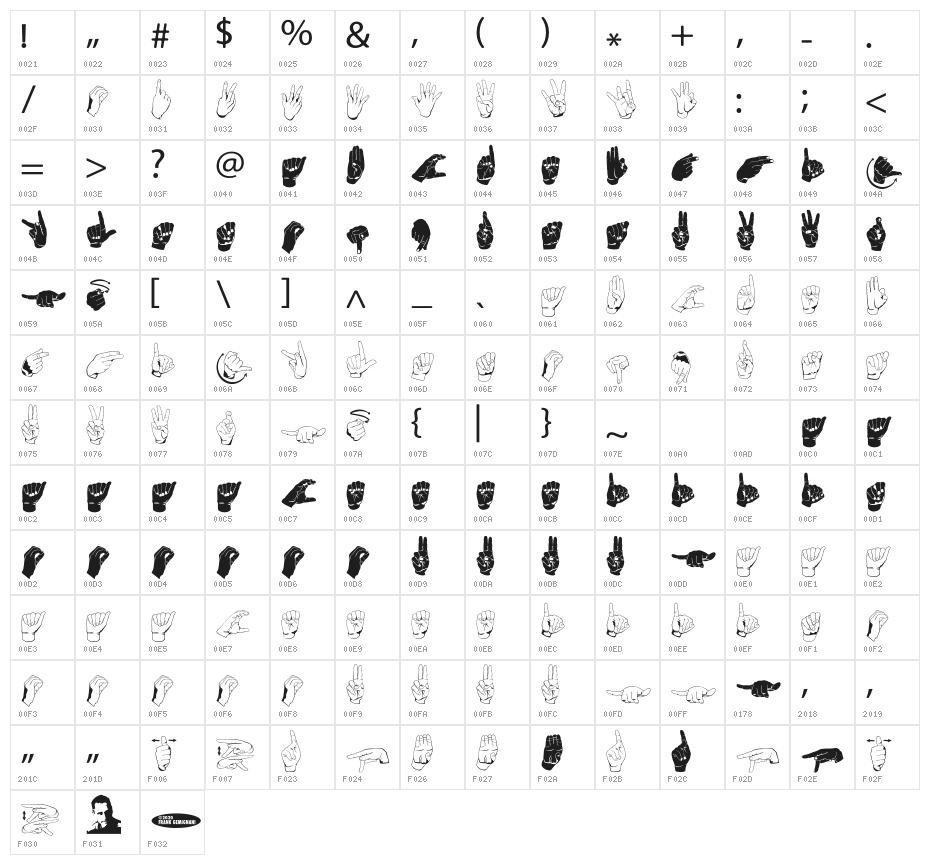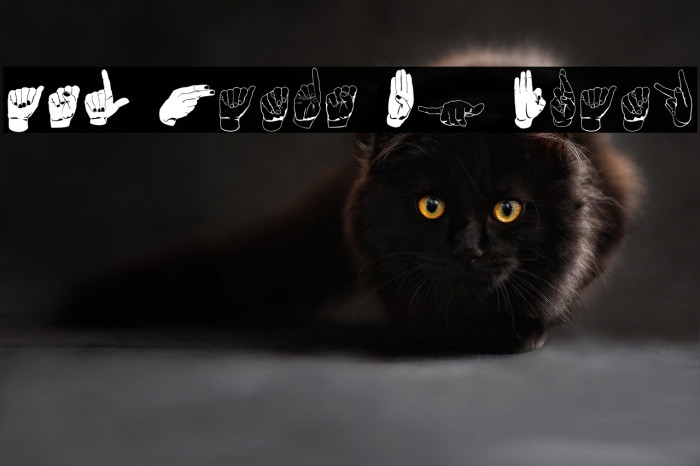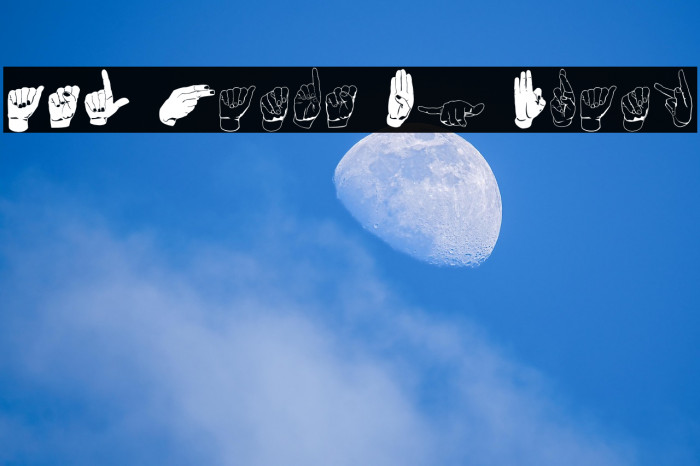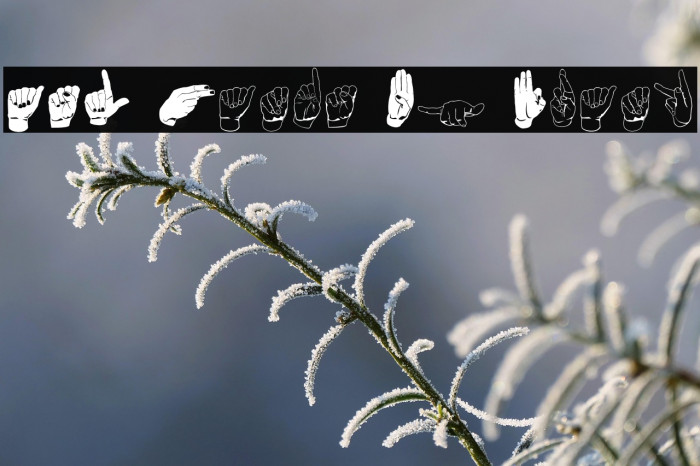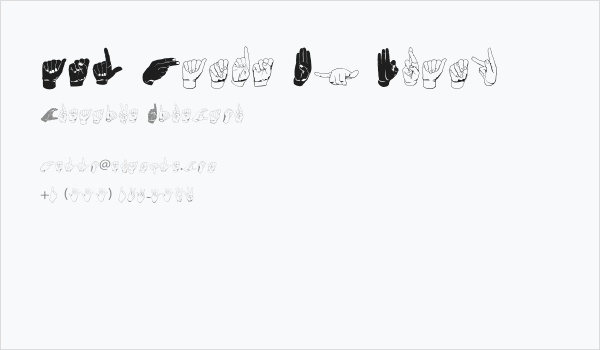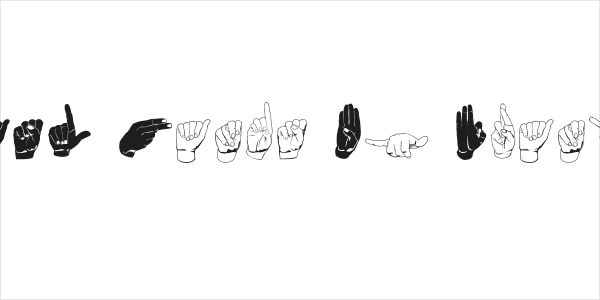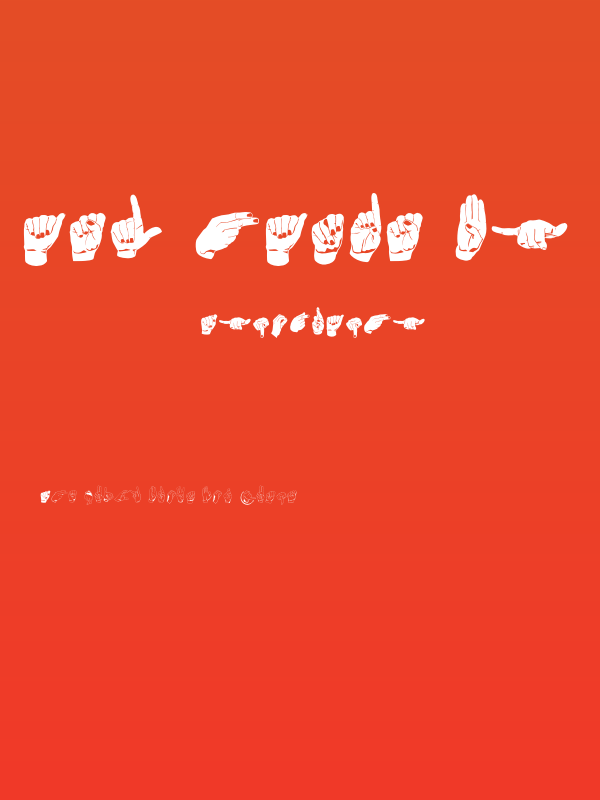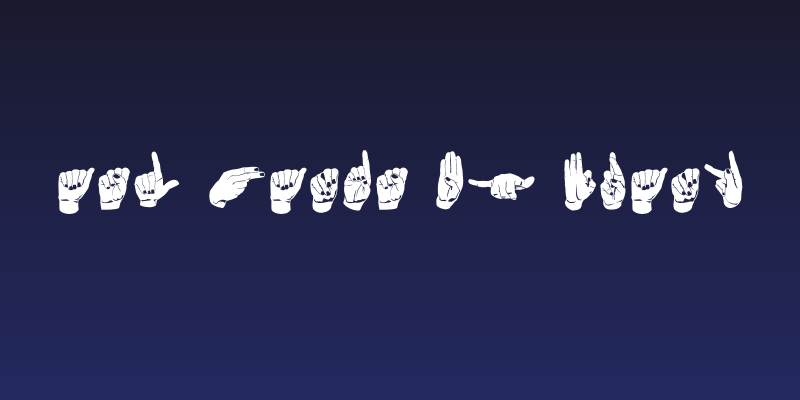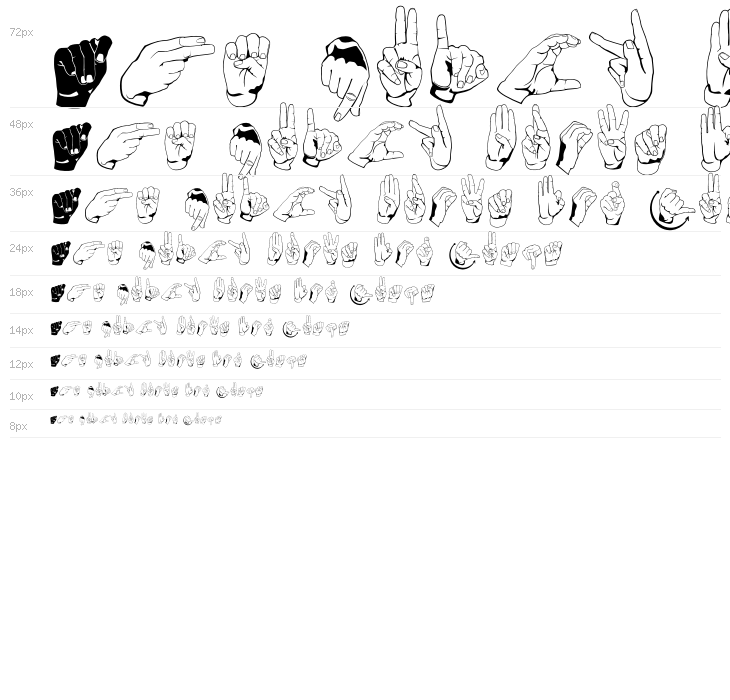
ASL Hands By Frank Font
ASL Hands By Frank Description
This unique font is inspired by American Sign Language, featuring hand gestures that represent each letter and number. The design is both artistic and functional, offering a creative way to incorporate sign language into visual projects. Each character is depicted with a clear and distinct hand shape, ensuring readability while maintaining an artistic flair. The font includes both uppercase and lowercase letters, numbers, and a selection of special characters, all represented through expressive hand illustrations. The style is bold and engaging, making it suitable for projects that aim to promote inclusivity and communication.